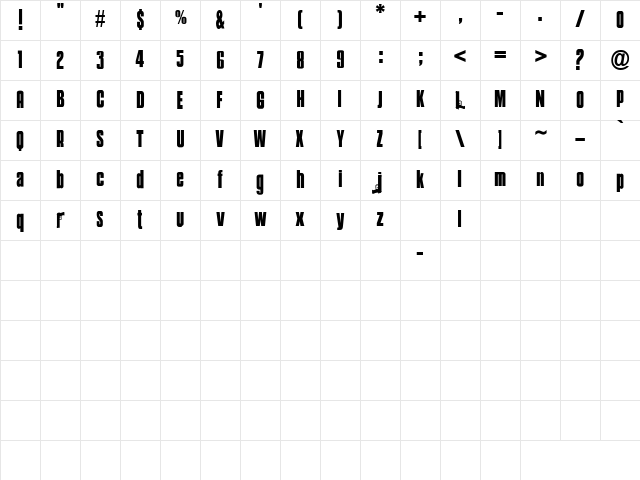
Mobsters Regular Free Font
Mobsters Regular
Designer: Dennis Ludlow
Complete Mobsters Regular glyph index. Displaying only characters natively supported by Mobsters Regular font.
Design Context for Mobsters
Mobsters is a composed and adaptable typeface that performs quietly and consistently across a wide range of design contexts.